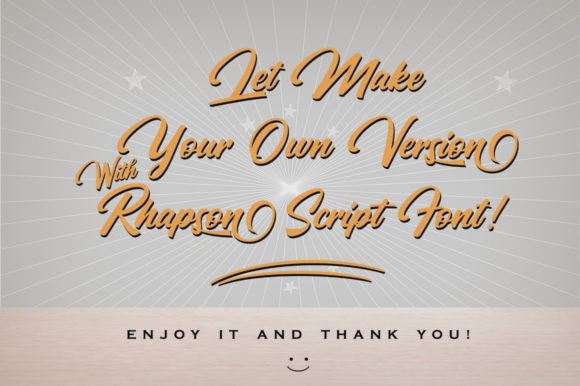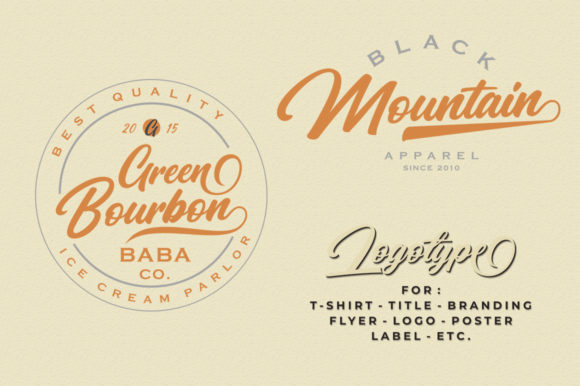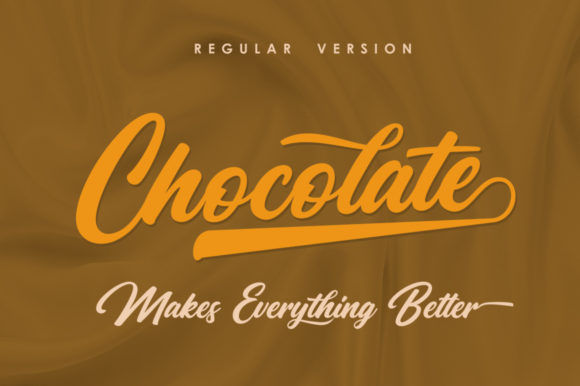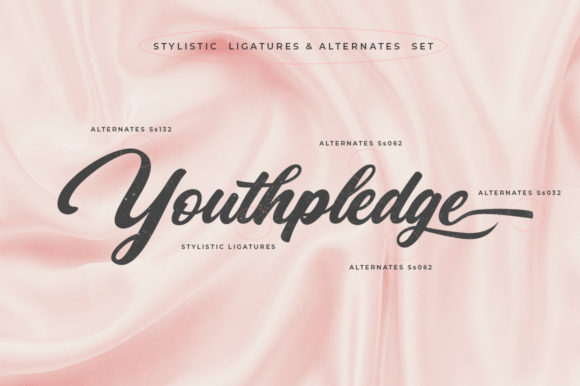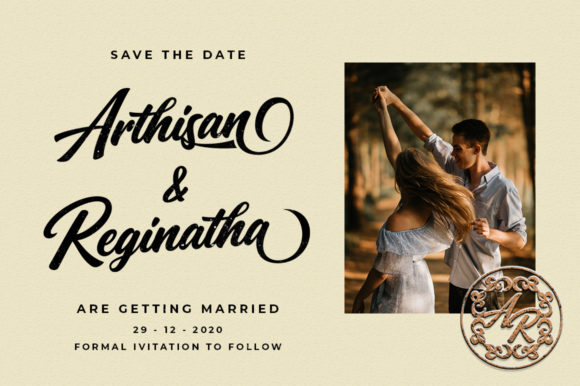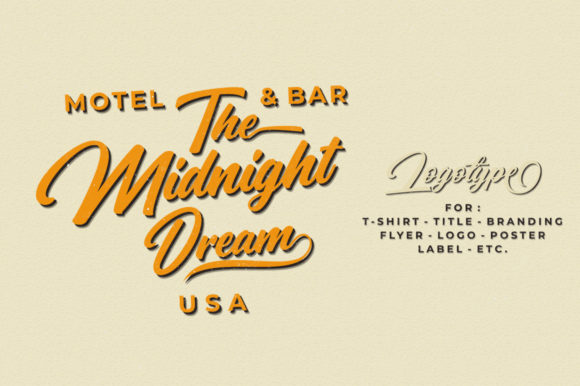
HomeScript FontsRhapson Script Font Script Fonts Rhapson Script Font FacebookXPinterestWhatsApp Rhapson Script Font Poster 2 Rhapson Script Font Poster 3 Rhapson Script Font Poster 4 Rhapson Script Font Poster 5 Rhapson Script Font Poster 6 Rhapson Script Font Poster 7 About Rhapson Script Font Rhapson is a soft and cool script with a unique style. Fall in love with its retro look! DOWNLOAD ON CREATIVE FABRICAThis font is sold and delivered by Creative Fabrica. Font Canyon may earn a commission if you buy through this link. People also explored Hillarya Maliah Font Smurrie Filmotype Hudson Mikulsa Font Black Attacks Font Vasttag Font Arapail Font Gentlewoman Font Horror Season Font 399 0 TagsRhapson Script Font Previous articleBlackpool FontNext articleMarioline Barnard Font LEAVE A REPLY Cancel reply Comment: Please enter your comment! Name:* Please enter your name here Email:* You have entered an incorrect email address! Please enter your email address here Website: Save my name, email, and website in this browser for the next time I comment. Personal Use Free Masker Area Personal Use Free Read more about this font Coolvetica Font Personal Use Free Read more about this font Susanna Personal Use Free Read more about this font Pretender Personal Use Free Read more about this font BLOG 5 Fonts That Will Dominate Design Trends in 2026 5 Fonts for 2026 That Will Dominate Design Trends Typography plays a critical role in visual communication, and as we look ahead to 2026, it’s... Exploring Font Trends Using Fonts in Digital Marketing: Tips to Strengthen Your Brand Identity To increase your work productivity, choose the most readable fonts.